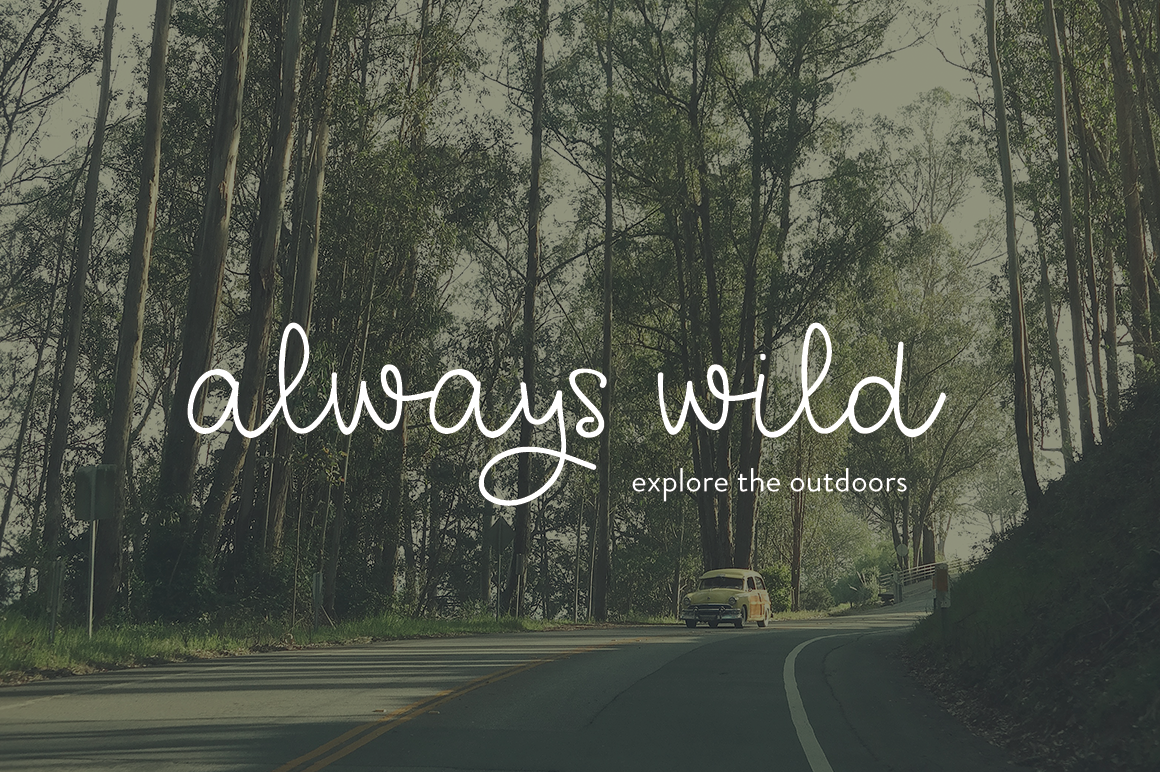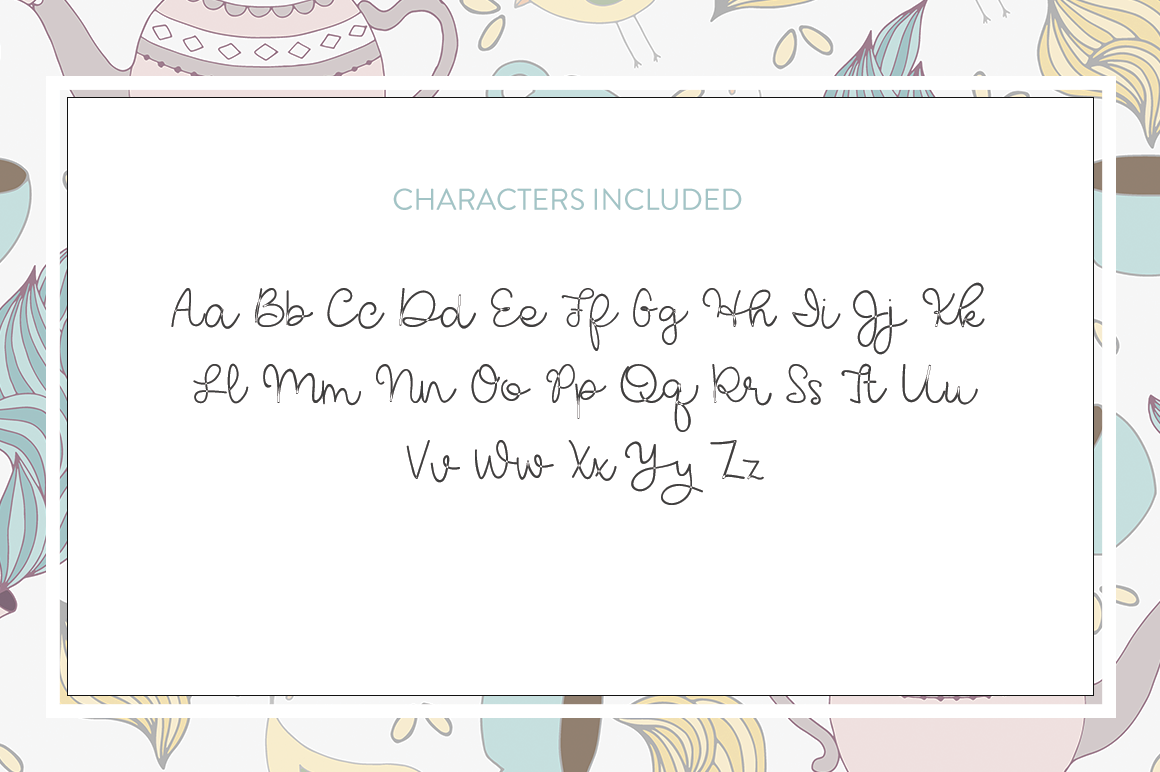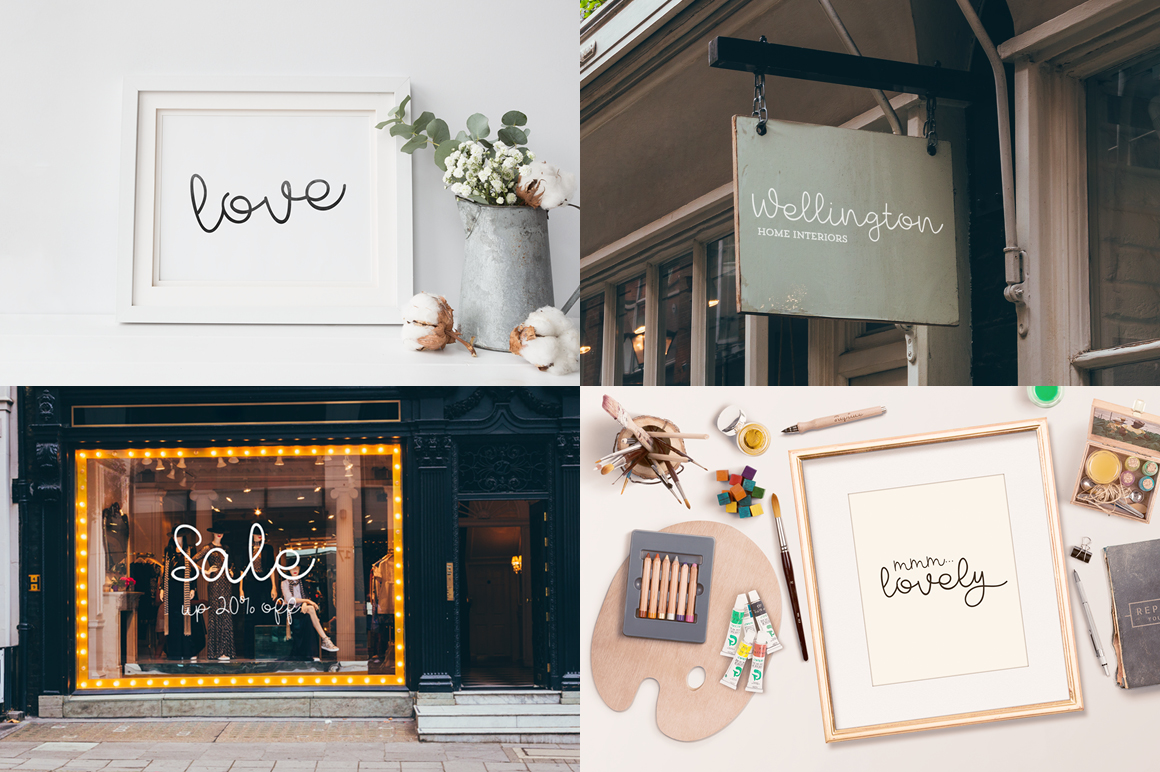
Introduction to Nutmeg Script Font
Nutmeg is a curly swirly based hand-drawn font.
This elegant, clean font contains more than 100 different hand-drawn characters .
Key Features of Nutmeg Script Font